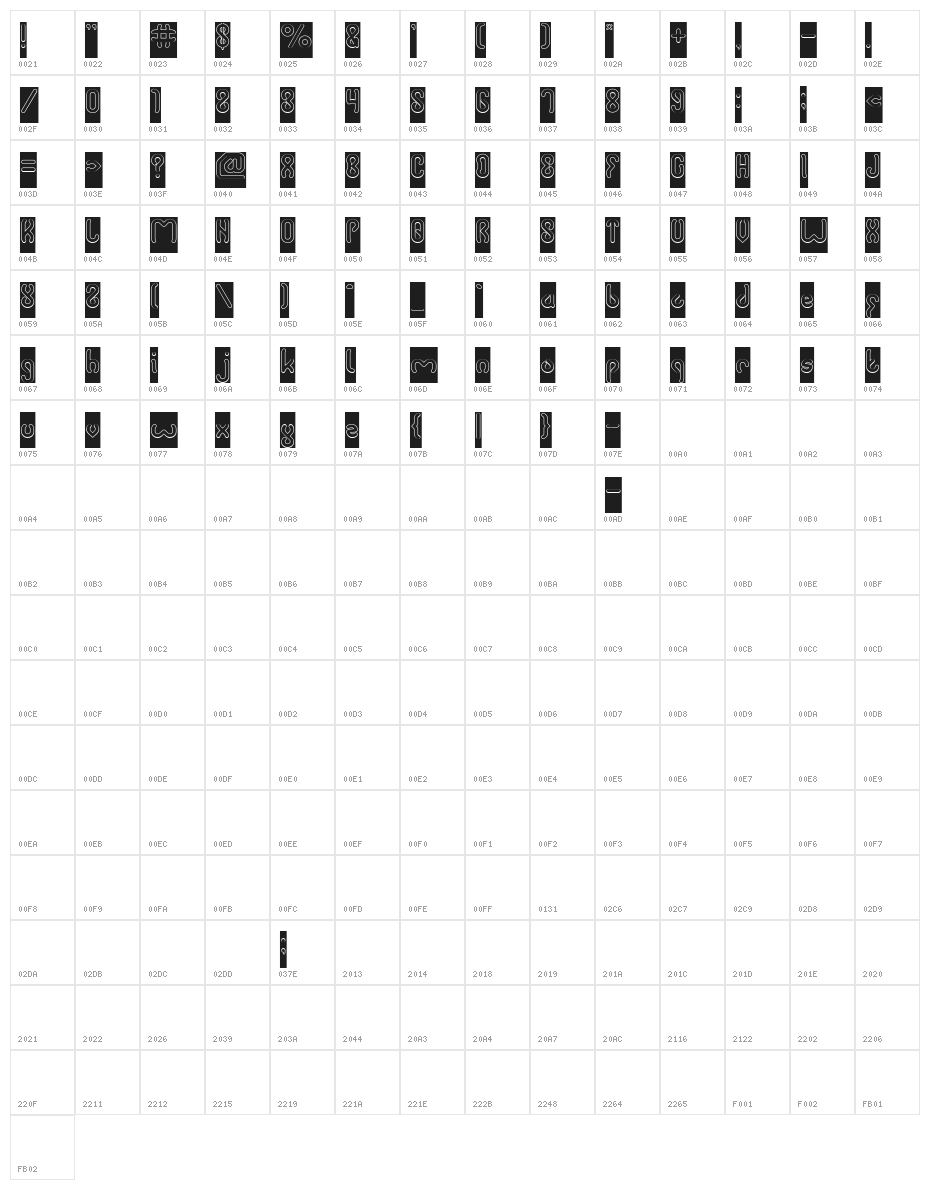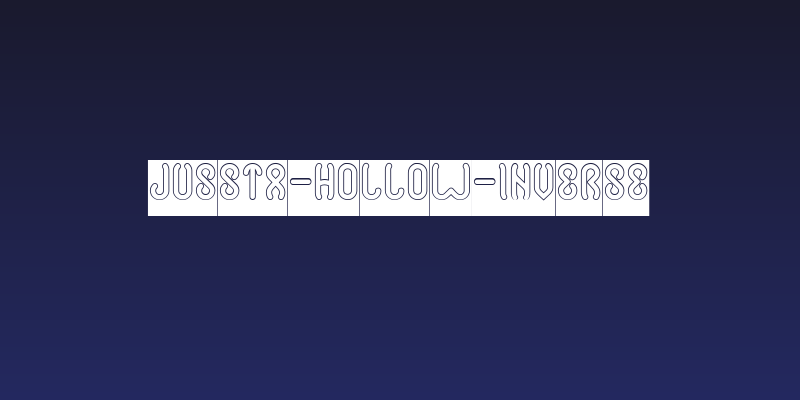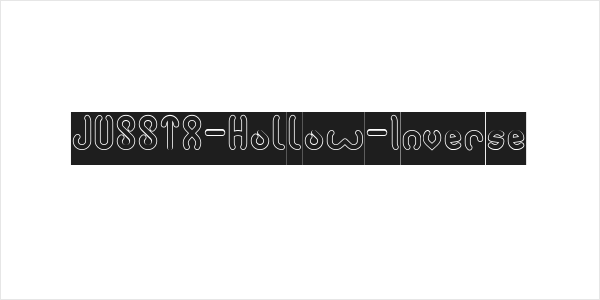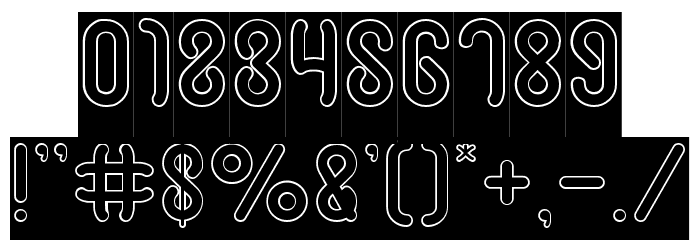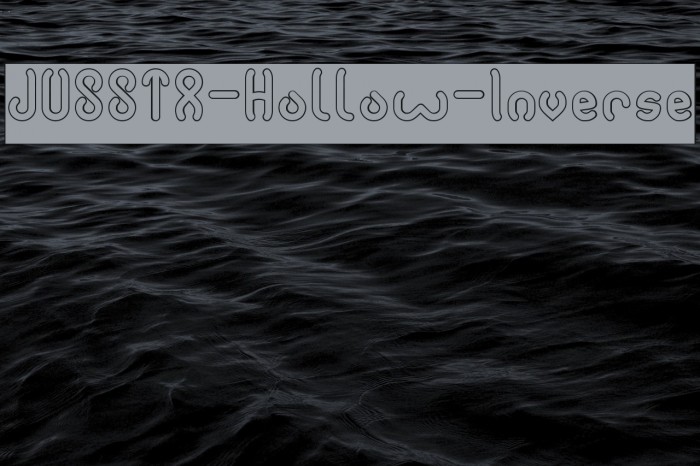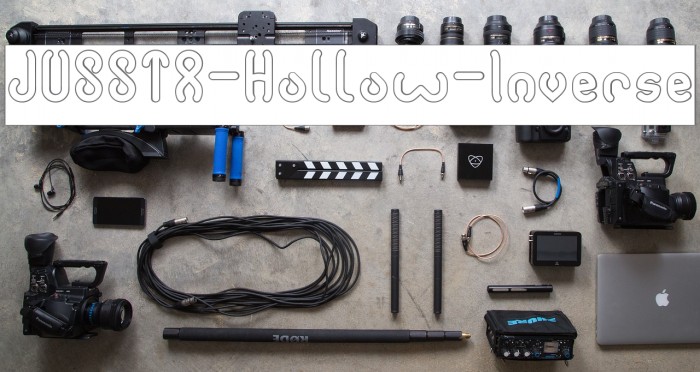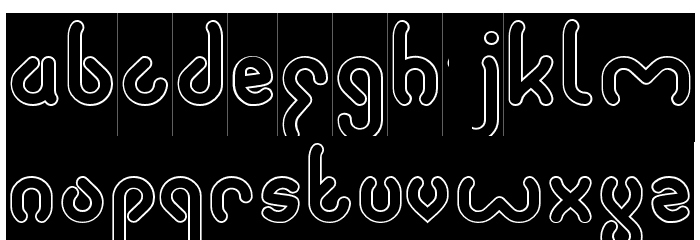
JUSSTA-Hollow-Inverse Font
JUSSTA-Hollow-Inverse Description
This font features a unique hollow design with an inverse style, creating a striking visual impact. The characters are outlined with a consistent stroke width, giving them a modern and futuristic appearance. The uppercase and lowercase letters maintain a cohesive style, with rounded edges and smooth curves that enhance readability. The numbers and special characters are designed to match the overall aesthetic, providing a uniform look across all elements. This font's hollow nature makes it ideal for projects that require a bold statement without overwhelming the viewer.
JUSSTA-HOLLOW-INVERSE UPPERCASE
JUSSTA-HOLLOW-INVERSE LOWERCASE
JUSSTA-HOLLOW-INVERSE OTHER CHARS